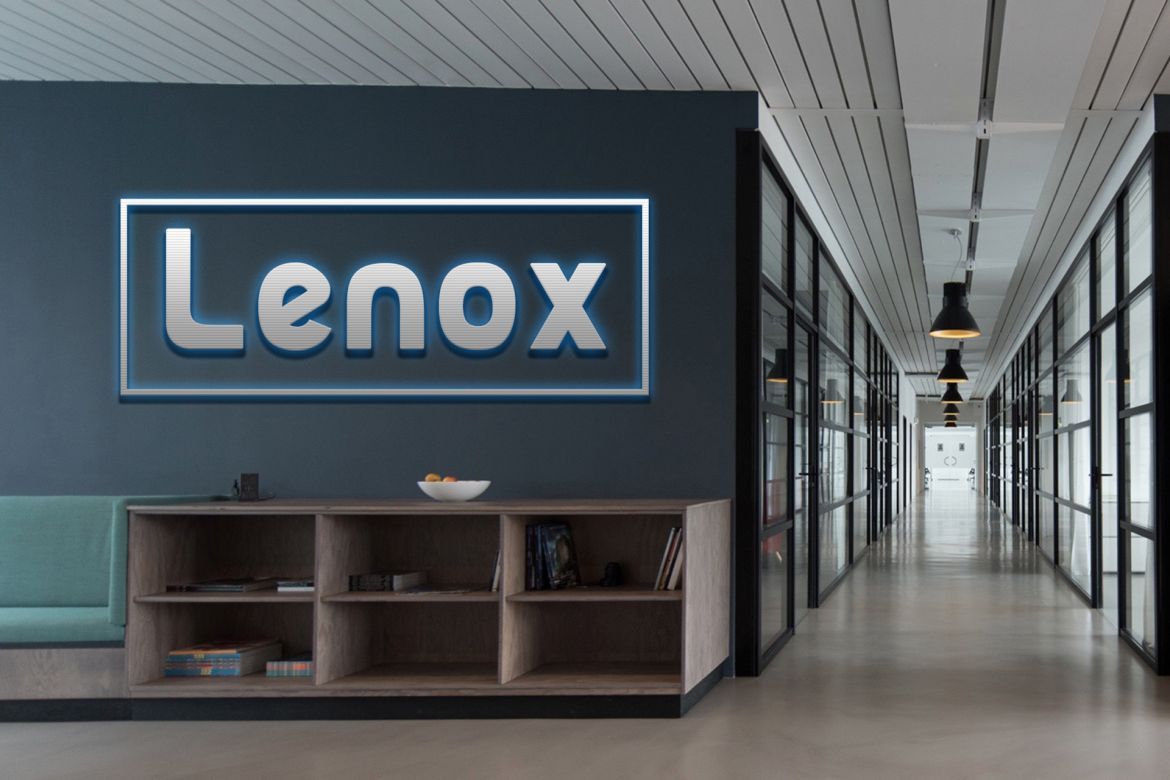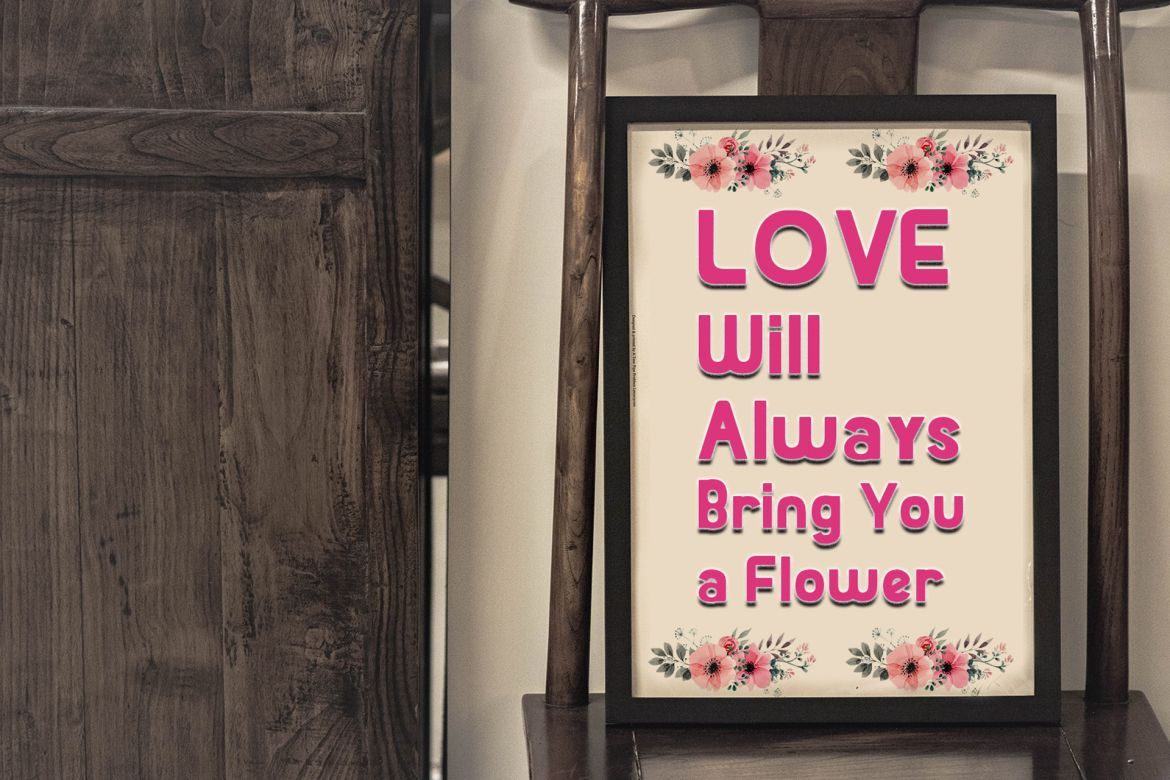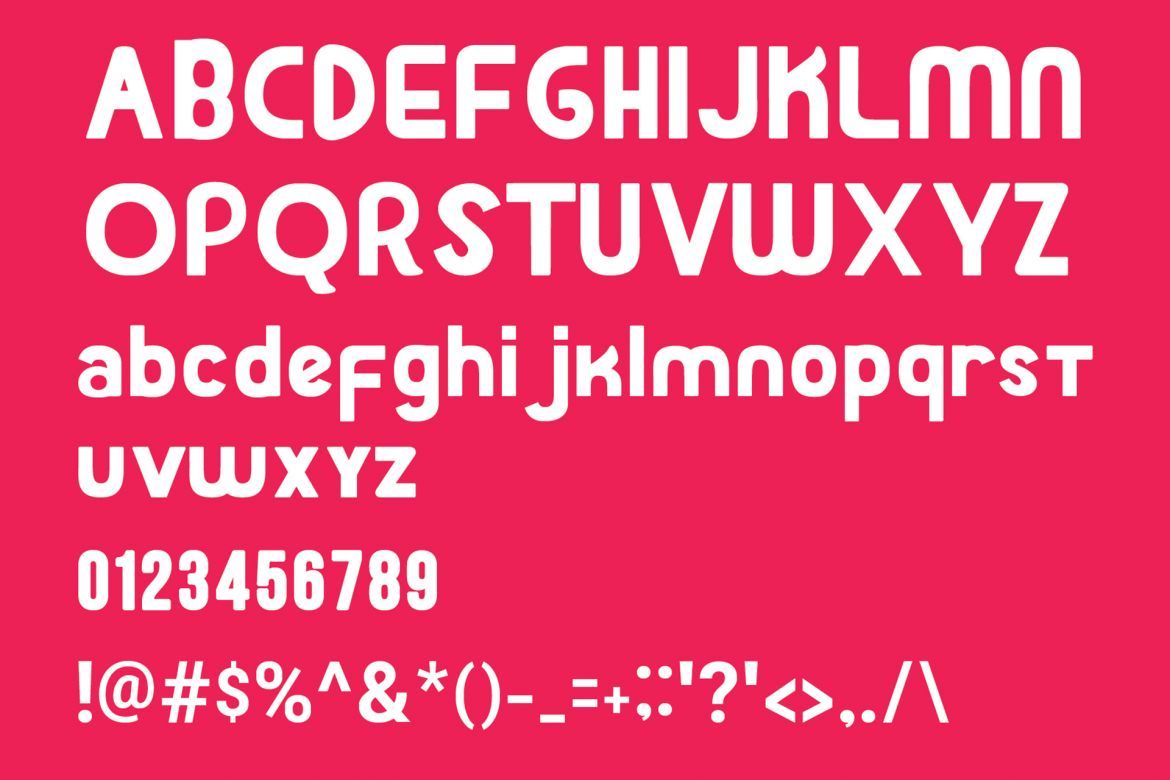
Lenox Font
-- Powerful / Elegant / Modern --
Lenoxl is a sans font family and sophisticated sans serif. Inspired by a modern letter logo with a strongest look. it's perfect for you to show your design or product in professional way.
USE Lenox works great in any branding, logos, magazines, films.
• original hand drawn
• perfect to use it on your retro poster design